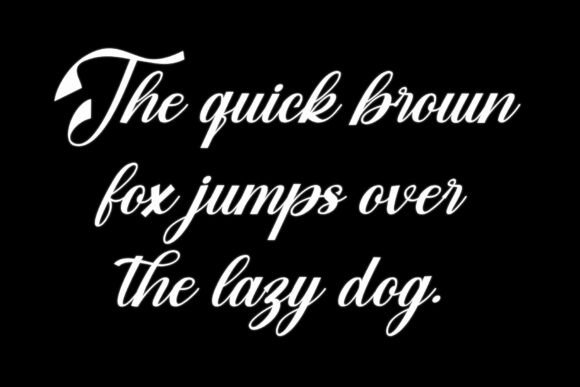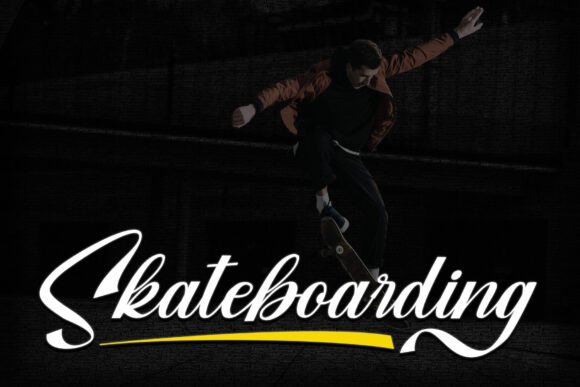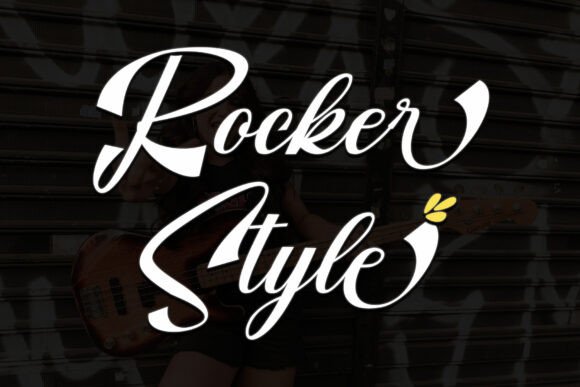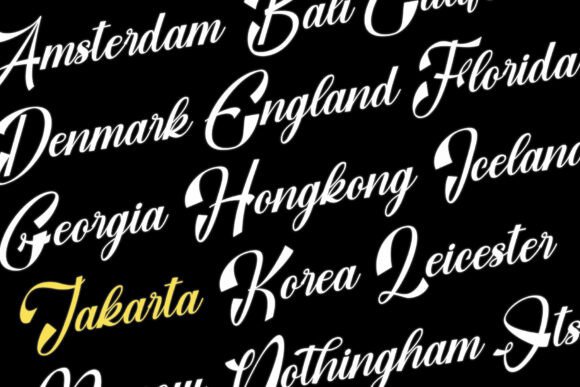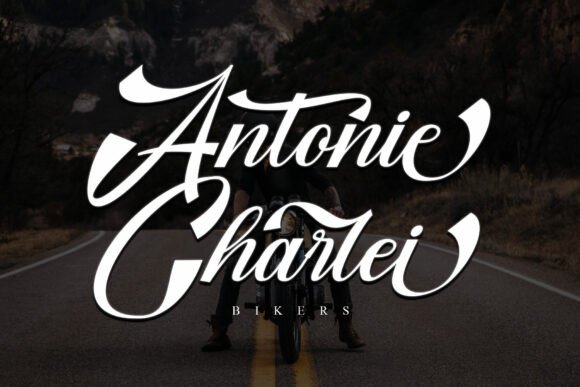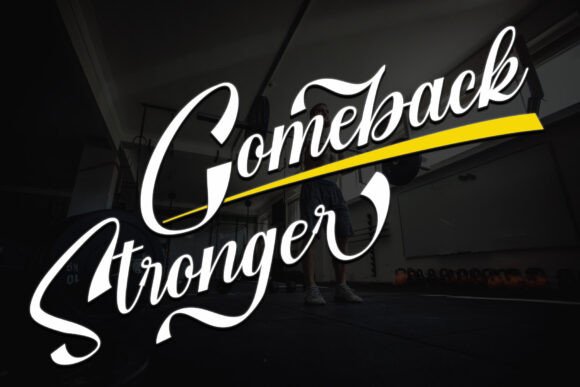
Introduction to Austone Font
Step into the contemporary world of typography with “austone”, a sophisticately modern, handwritten font.
Showcasing artistically unique swashes, austone has the power to effortlessly infuse elegance into your diverse designs This extraordinary calligraphy brings a timeless ethos that captures the imagination, making it ideal for adding a personal touch to your creative ventures.